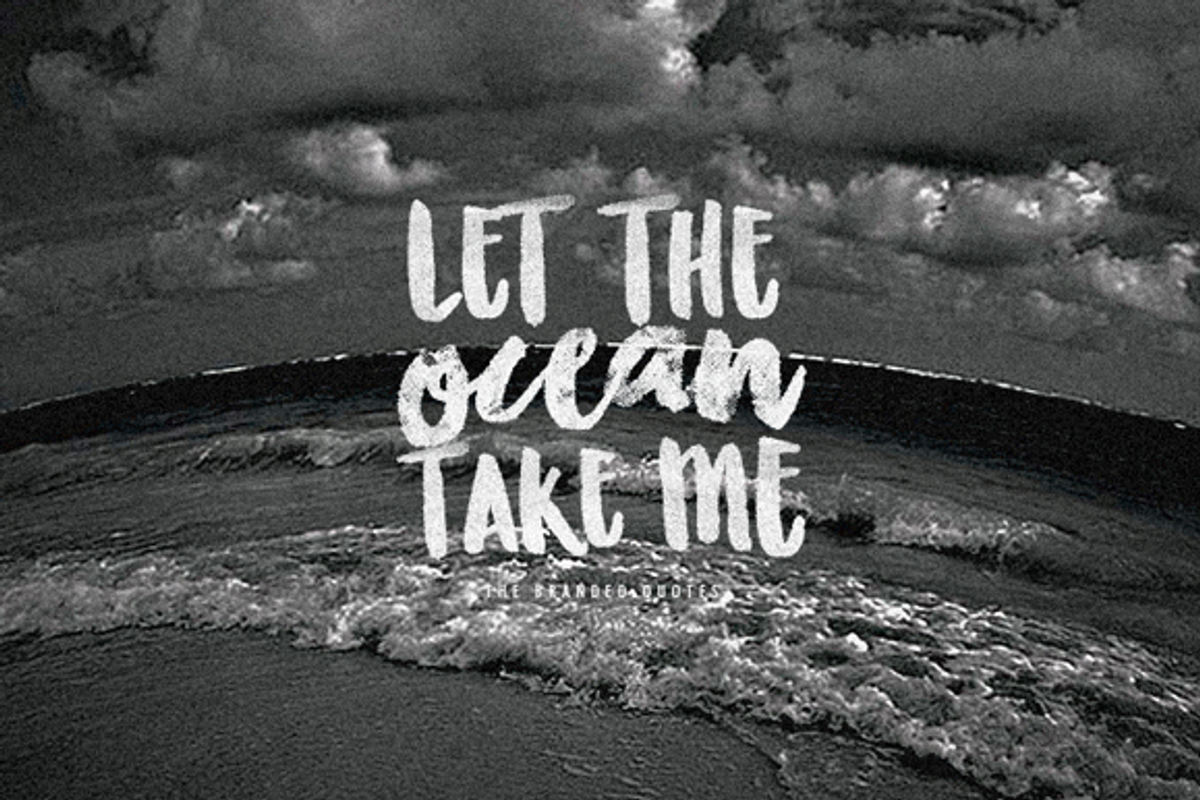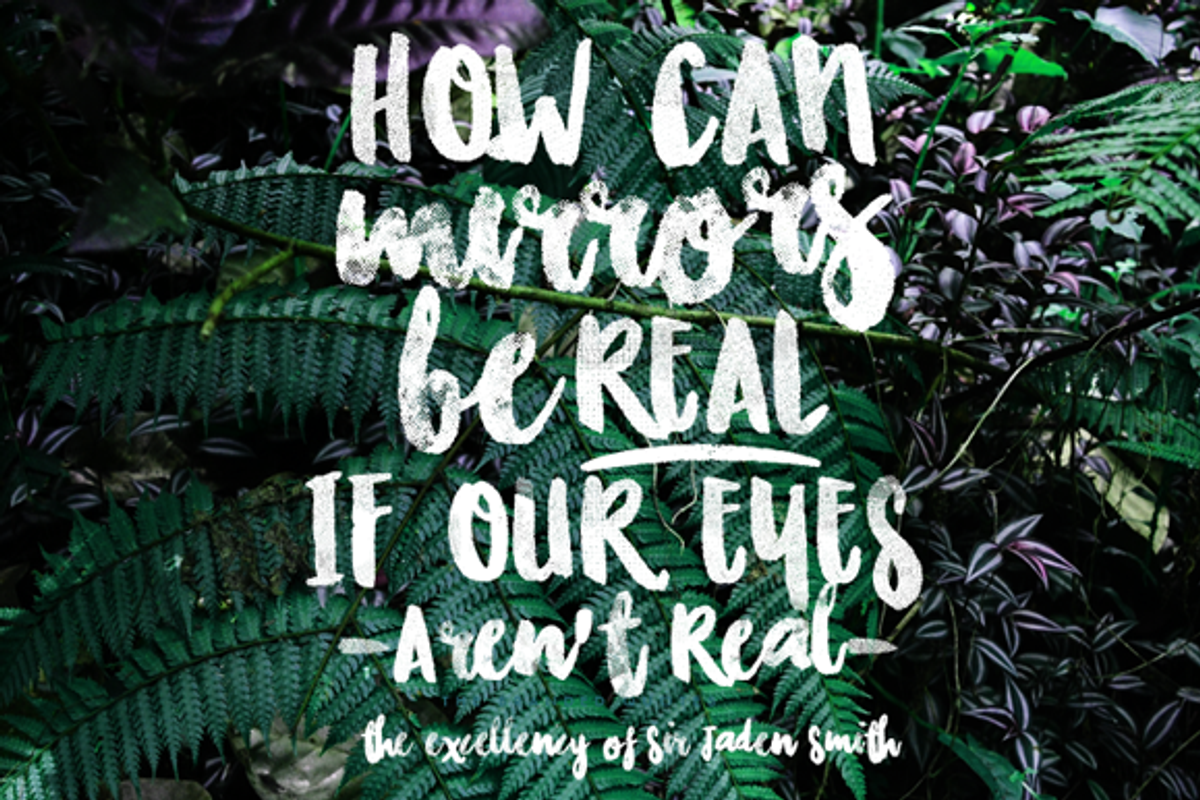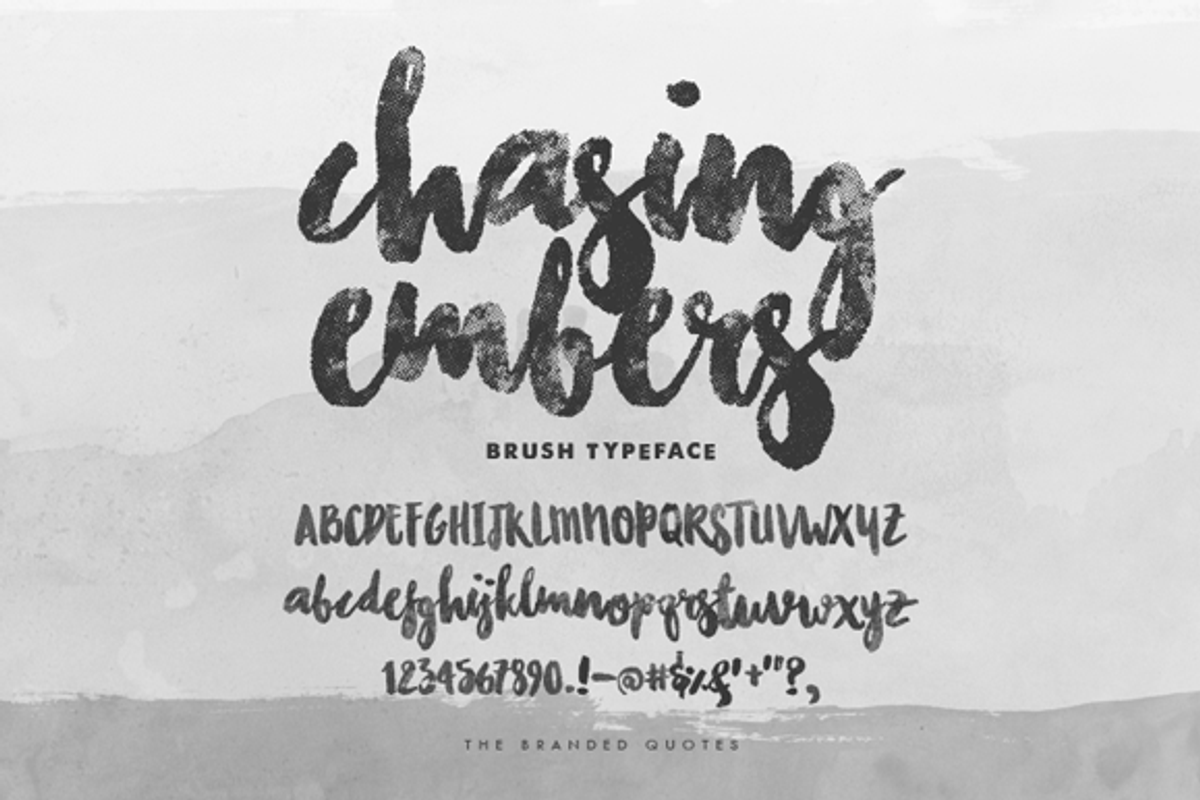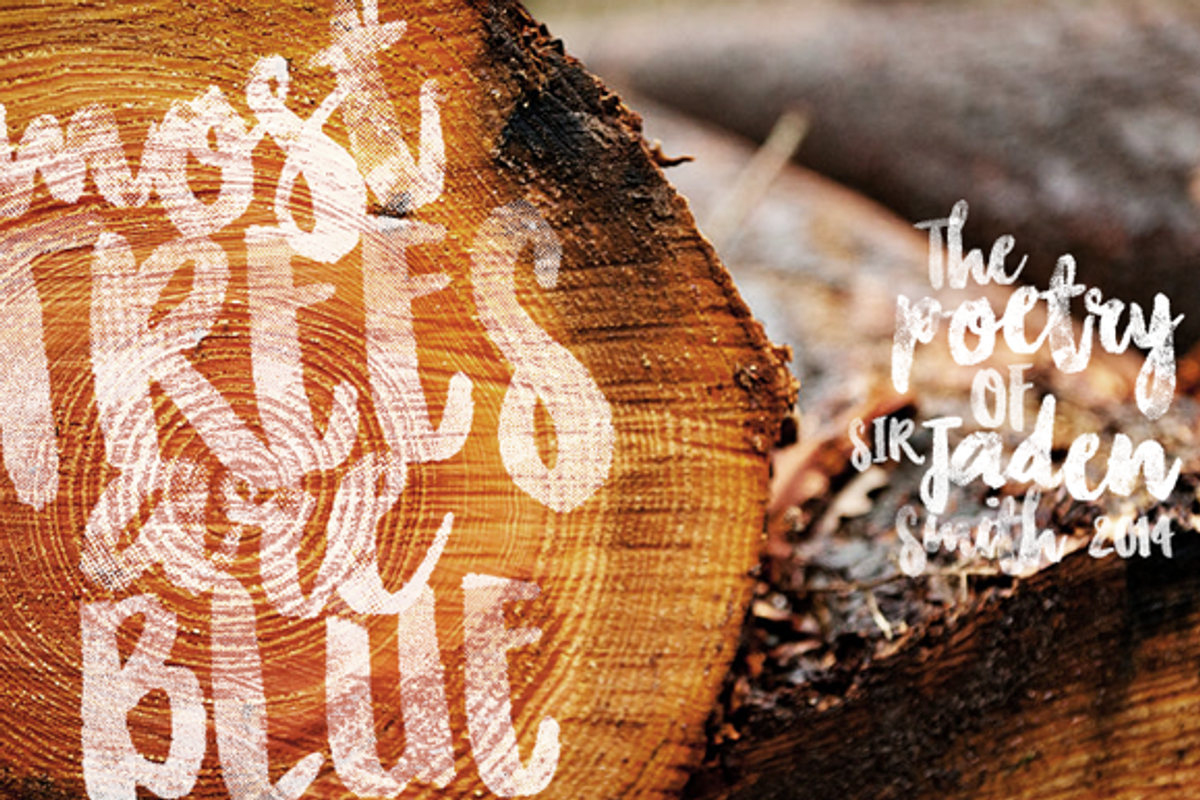
Chasing Embers Typeface
Chasing Embers Typeface by The Branded Quotes is a font selected for branding, posters, packaging, typography.
Why Chasing Embers Typeface is worth a look
Chasing Embers Typeface by The Branded Quotes fits naturally into Branding, posters, packaging, typography.